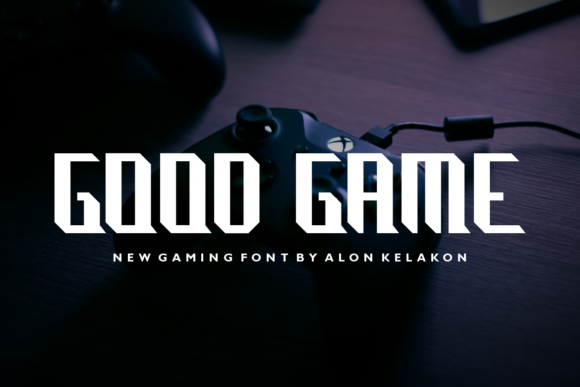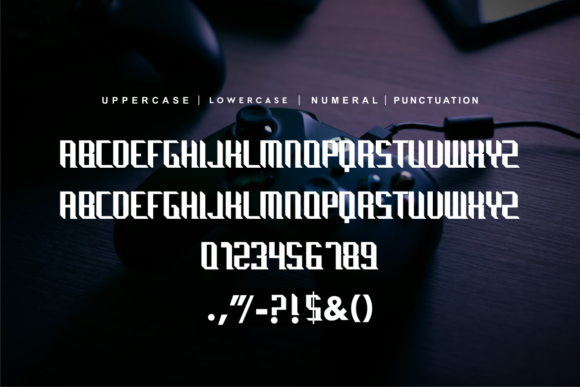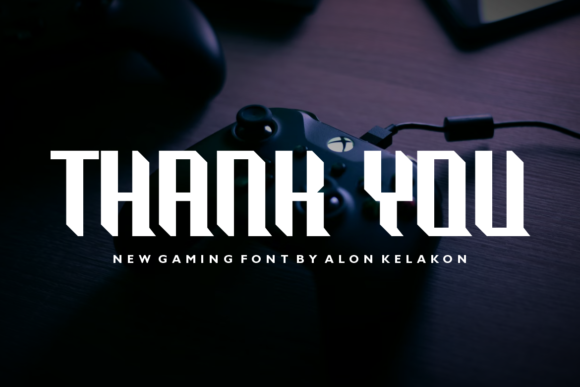
Gaminger Font: The Ultimate Display Font for Bold Designs
Are you looking for a font that can add a touch of boldness and coolness to your designs? Look no further than the Gaminger font. This thick lettered display font is perfect for any branding project that requires a statement piece. In this article, we’ll dive into the features and benefits of the Gaminger font, and explore how it can elevate your designs to the next level.
What is Gaminger Font?
Gaminger font is a cool, bold, and thick lettered display font that is designed to make a statement. Its unique and edgy style makes it perfect for designs that require a bold and eye-catching font. Whether you’re working on a logo, t-shirt printing, sport designs, or any other branding project, Gaminger font is an excellent choice.
Key Features of Gaminger Font
- Bold and Thick Letters: The Gaminger font features bold and thick letters that are sure to grab attention.
- Cool and Edgy Style: The font has a unique and edgy style that adds a touch of coolness to any design.
- Versatile: Gaminger font is suitable for a wide range of contexts, including logos, t-shirt printing, sport designs, and more.
- Easily Readable: Despite its boldness, the font is easily readable, making it perfect for designs that require a clear and concise message.
Benefits of Using Gaminger Font
So, why should you use Gaminger font for your designs? Here are just a few benefits:
- Stand Out from the Crowd: With Gaminger font, you can create designs that stand out from the crowd and grab attention.
- Perfect for Branding Projects: The font is ideal for branding projects, including logos, t-shirt printing, and sport designs.
- High-Quality: The font is of high quality, ensuring that your designs look professional and polished.
Design Ideas Using Gaminger Font
Here are some design ideas that you can use Gaminger font for:
- Logos: Use Gaminger font to create bold and eye-catching logos for your brand.
- T-Shirt Printing: Create stunning t-shirt designs using Gaminger font.
- Sport Designs: Use the font to create sport designs, including jerseys, posters, and flyers.
- Posters and Flyers: Create eye-catching posters and flyers using Gaminger font.
In conclusion, Gaminger font is a cool, bold, and thick lettered display font that is perfect for any branding project. Its unique and edgy style makes it stand out from other fonts, and its versatility ensures that it can be used in a wide range of contexts. Whether you’re a designer or a crafter, Gaminger font is an excellent choice for your designs. So, download the font today and start creating stunning designs that grab attention.